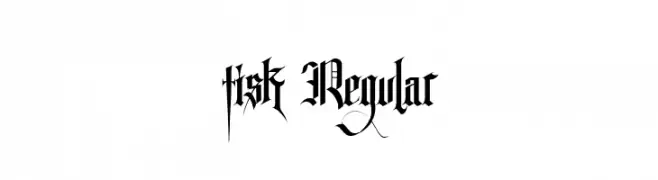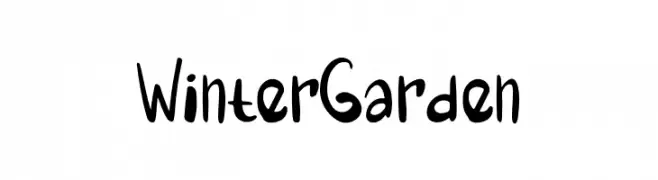
A playful handwritten font with smooth, rounded strokes and a casual style.
A bold, graffiti-inspired font with a dynamic, hand-drawn style.
A bold, playful handwritten font with an energetic and informal style.
An elegant, flowing script font with thin strokes and graceful curves.
A playful, handwritten font with tall, narrow letters and a casual vibe.
A decorative blackletter font with intricate, ornate letterforms and high contrast.
A bold, dynamic font with sharp edges and slight cursive elements.
A playful, hand-drawn font with rounded edges and a whimsical style.
A playful, handwritten font with a whimsical and friendly appearance.
A playful, hand-drawn font with a whimsical and informal style.